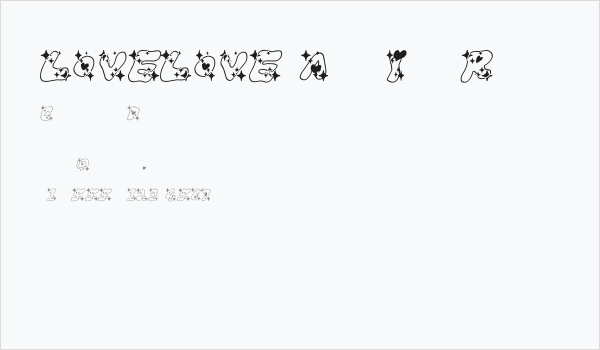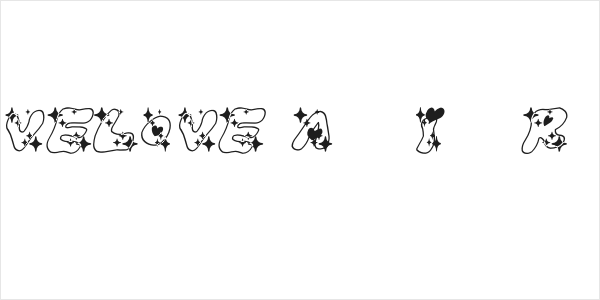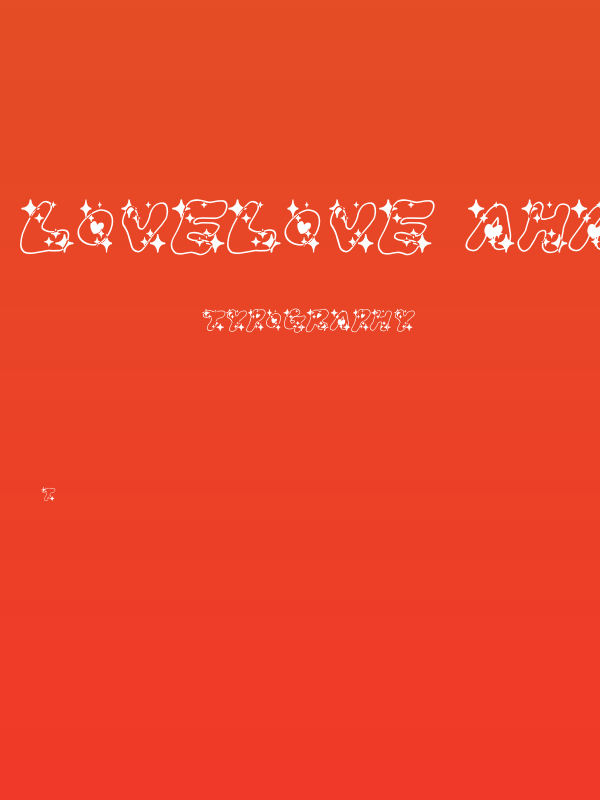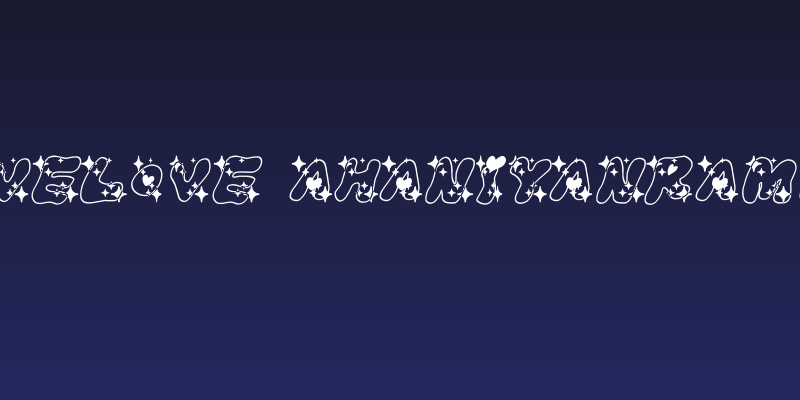
LOVELOVE_AhanIyanRamee Font
LOVELOVE_AhanIyanRamee Description
This font features a playful and decorative style, with each character adorned with stars and hearts. The letters are bold and rounded, creating a whimsical and eye-catching appearance. The embellishments add a unique flair, making it ideal for creative and fun projects. The font maintains a consistent weight and width throughout, ensuring readability despite its ornate design. The characters are well-spaced, allowing the decorative elements to stand out without overwhelming the text.
| Proposed Projects | Ideal for children's book covers, party invitations, greeting cards, and playful branding projects. |